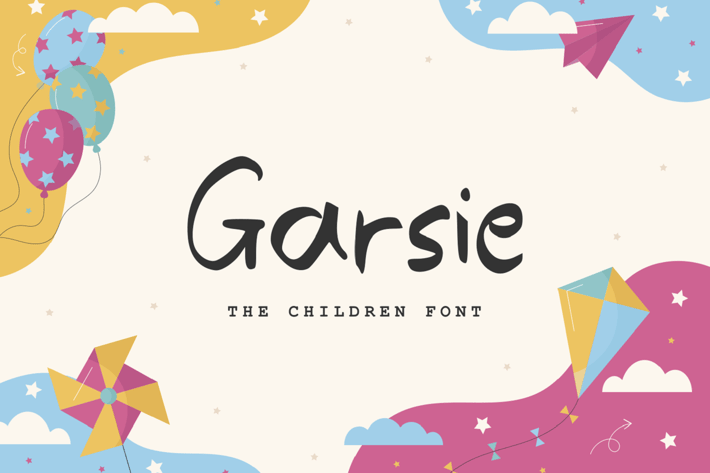
Garsie - The Children Font
Garsie - The Children Font, it’s perfect for logos, name card, magazine layouts, invitations, headers, or even large-scale artwork.